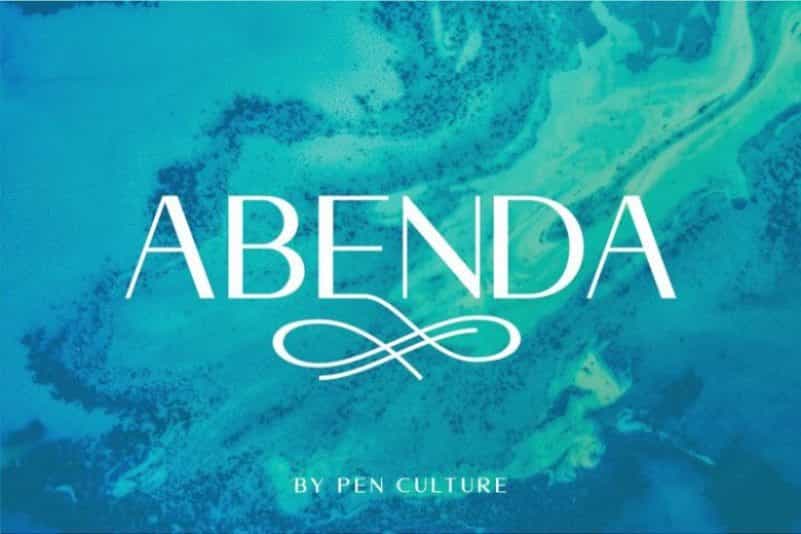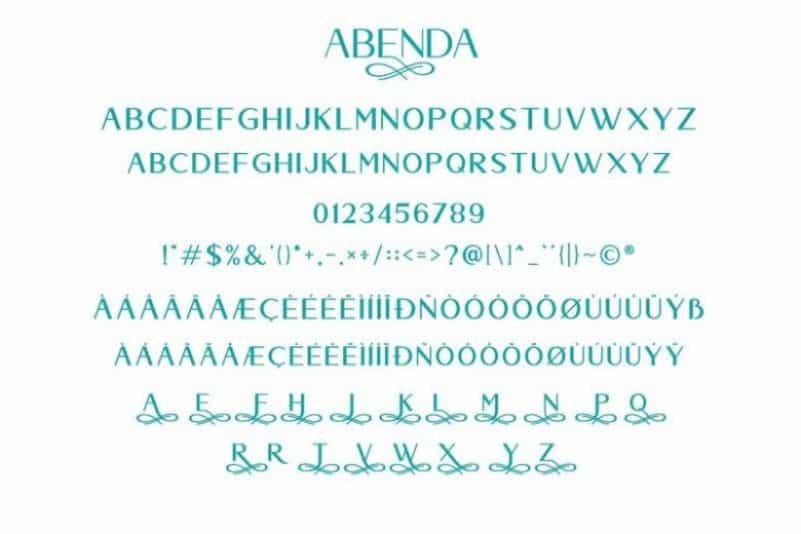
Abenda is an elegant sans typeface and is named Abenda. It is versatile and unpretentious, and it is a good choice for any text where it can play the role of the protagonist or a background figure. It is design and shared by Pen Culture. It is a beautiful sanseriff family and it has been designed with the concept of the modern typeface. Abenda very easy to use and it has been associated with beautiful and sophisticated options.